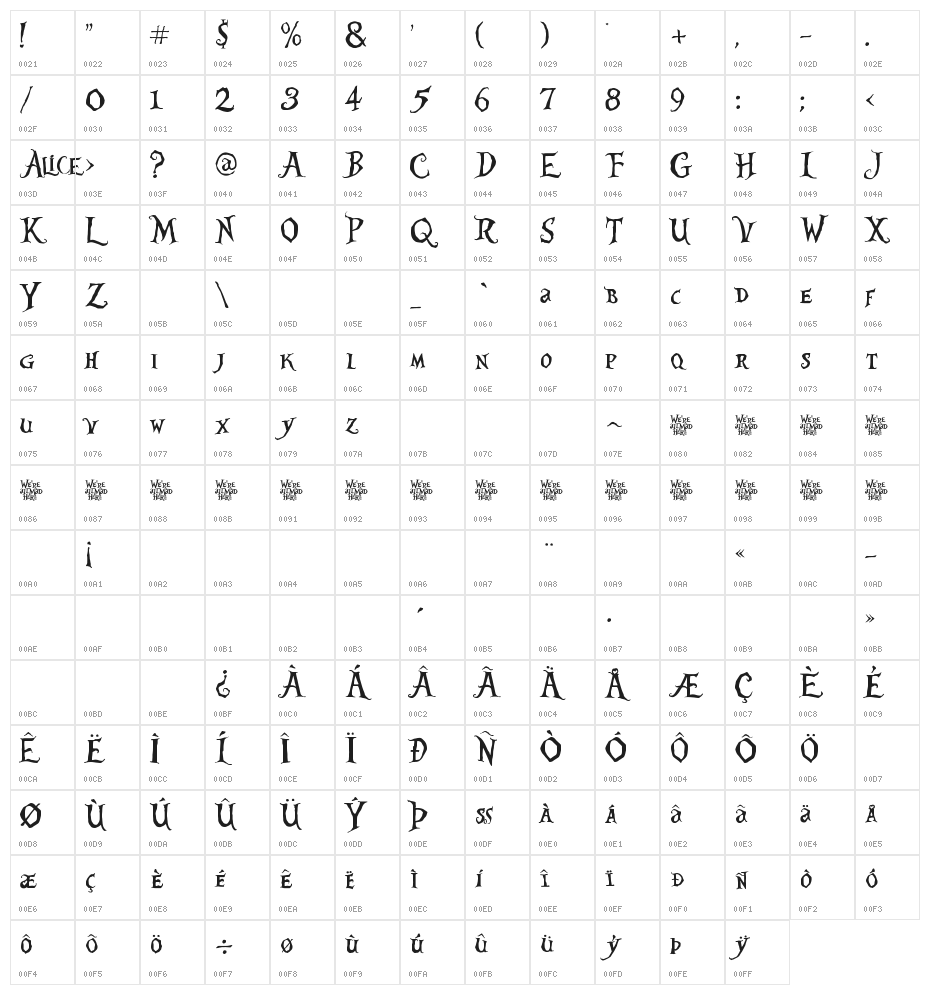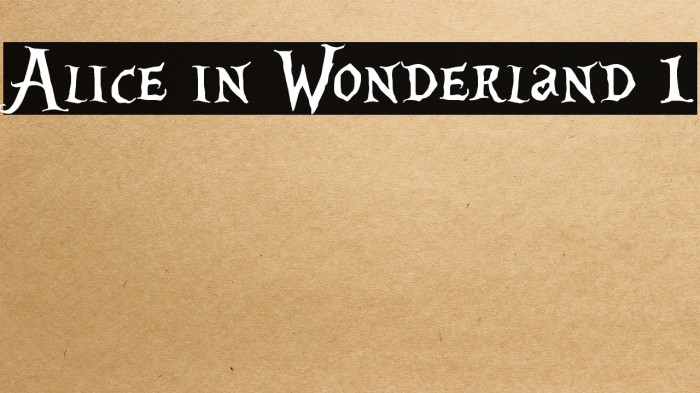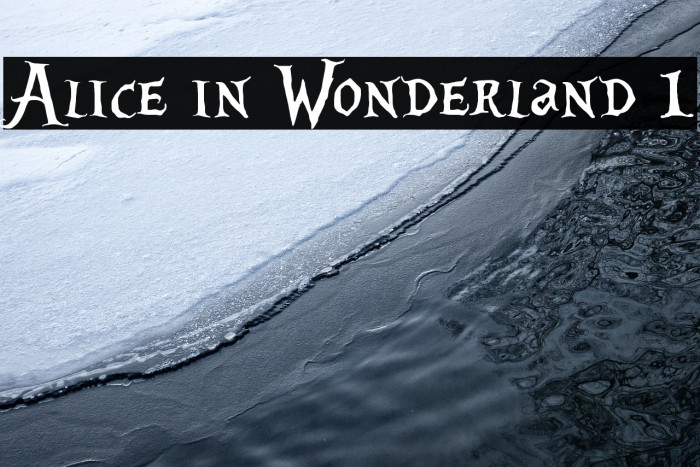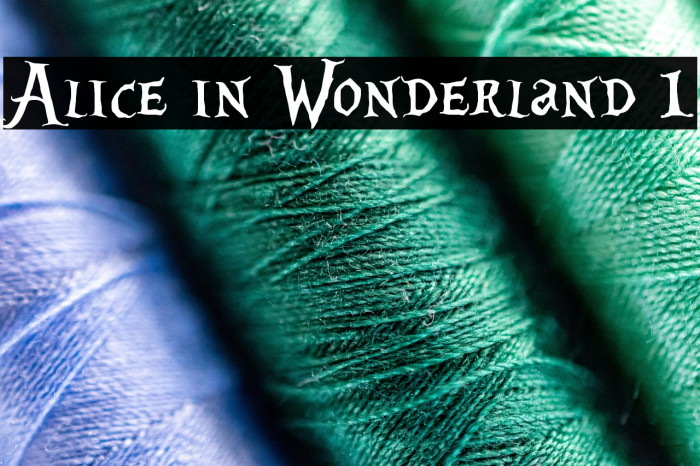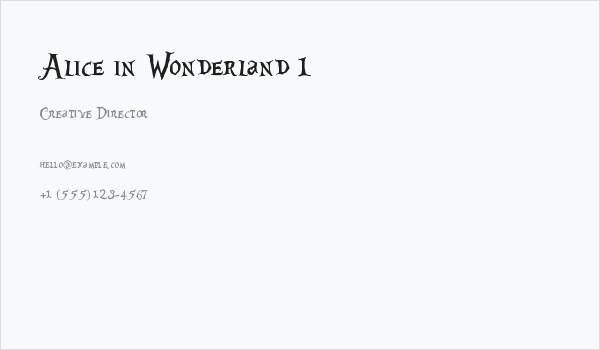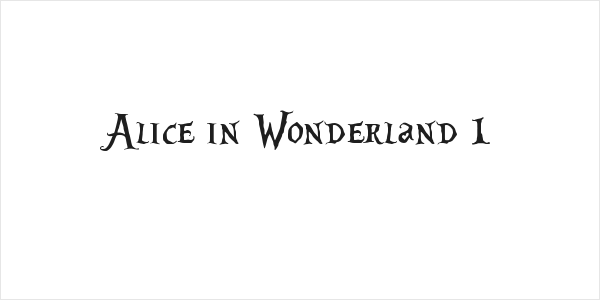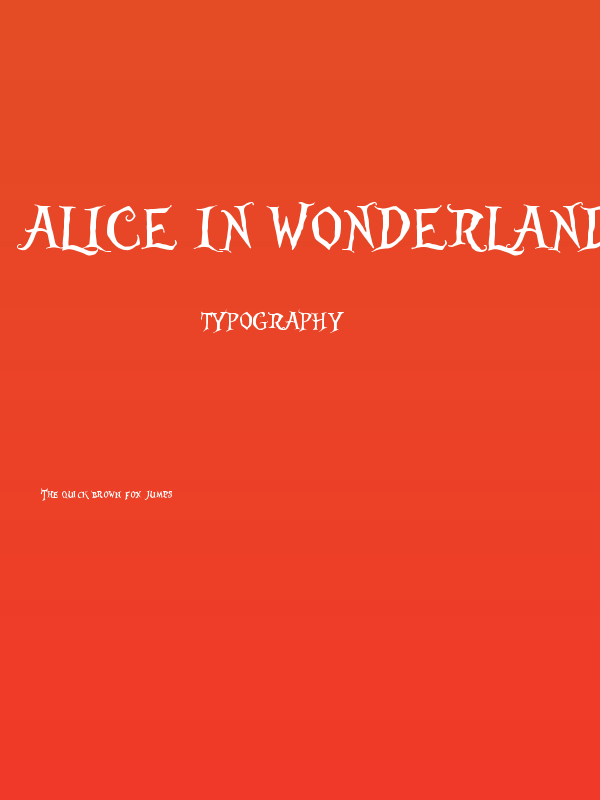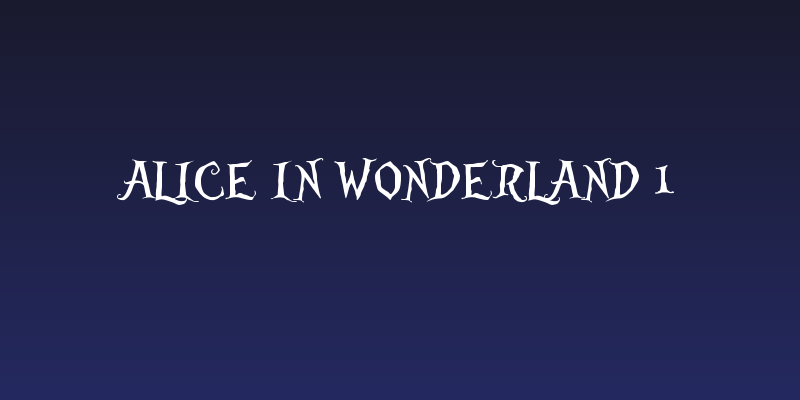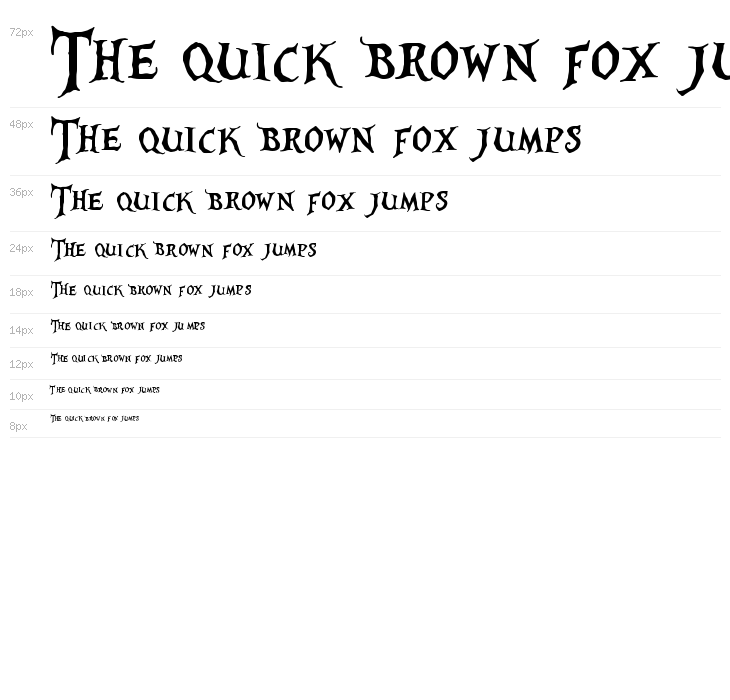
Alice in Wonderland 1 Font
Alice in Wonderland 1 Description
This font exudes a whimsical and fantastical charm, reminiscent of storybook tales and magical adventures. The characters are crafted with a playful, hand-drawn style, featuring irregular strokes and a slightly uneven baseline that adds to its enchanting appeal. The uppercase letters are bold and expressive, while the lowercase letters maintain a consistent yet quirky design. Numbers and special characters follow the same imaginative style, making the font versatile for creative projects. The overall look is both vintage and decorative, capturing a sense of wonder and curiosity.
| Overall Style | Vintage, Decorative |
| Proposed Projects | Ideal for children's books, fantasy-themed invitations, whimsical branding, and creative posters. |